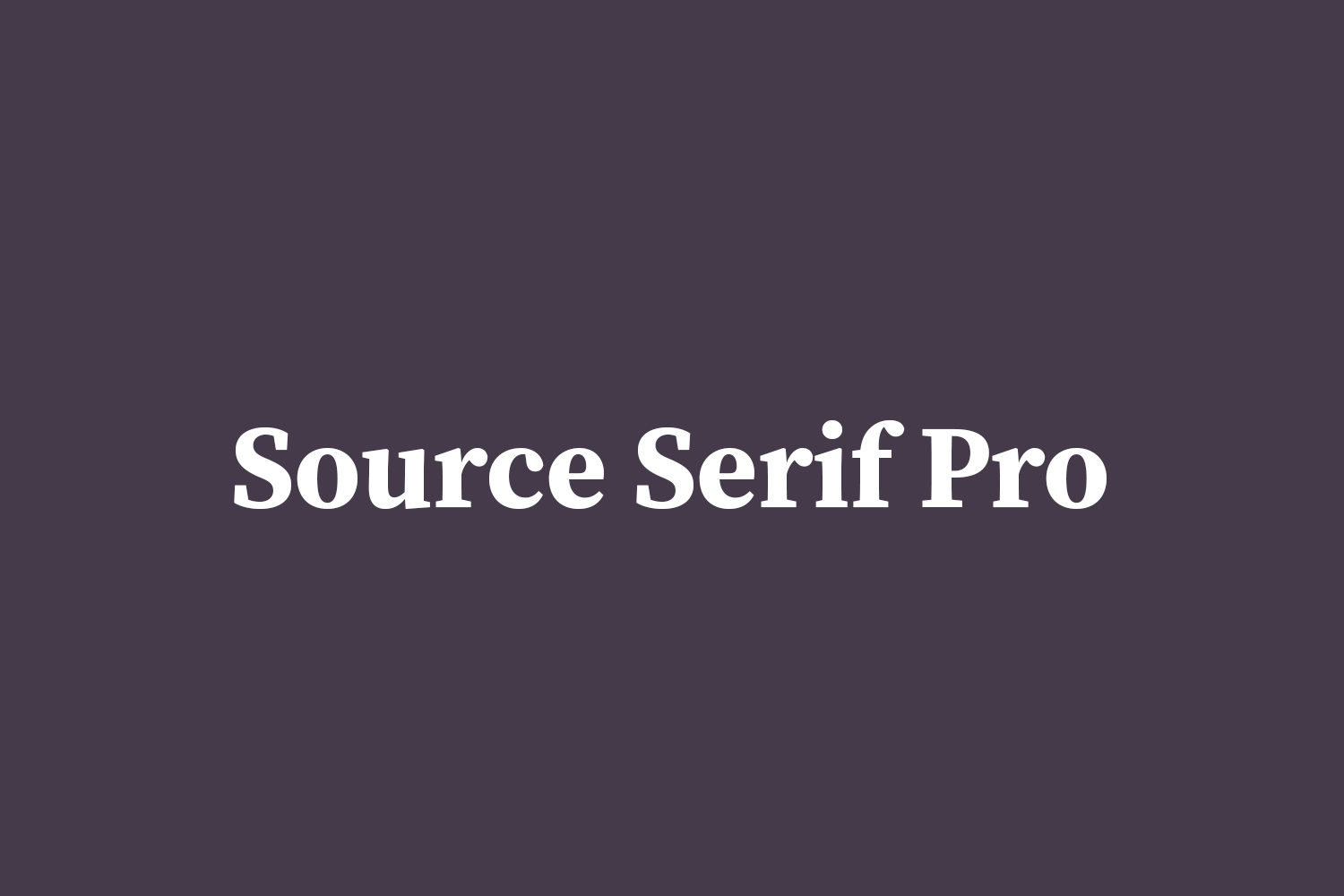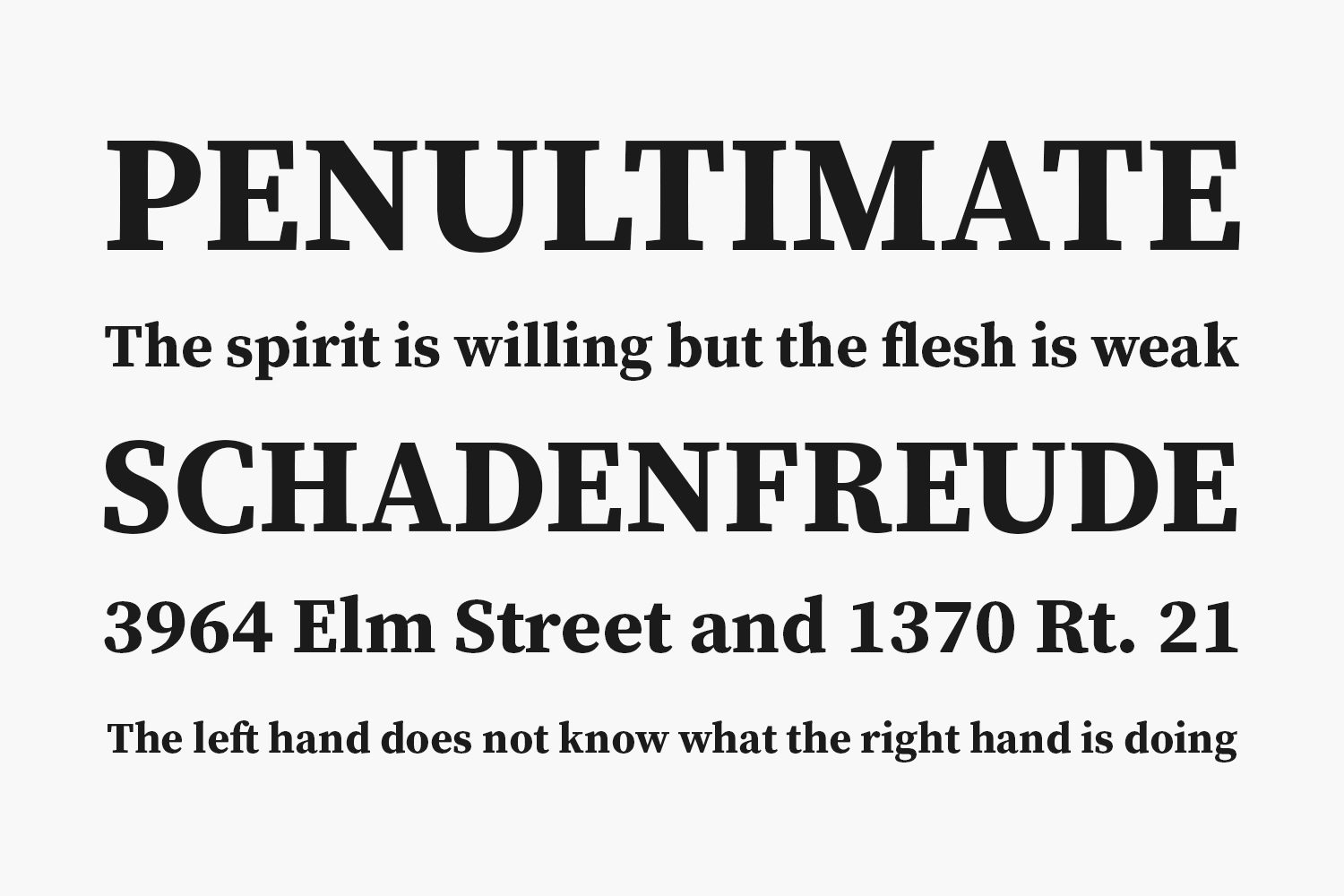
Source Serif Pro
Source Serif Pro is a serif typeface in the transitional style, designed to complement Source Sans. Their close companionship is achieved by a careful match of letter proportions and typographic color. While designed to harmonize with its serif-less counterpart, Source Serif often takes its own direction, in part because the two are inspired by different historical precedents. Source Serif is loosely based on the work of Pierre Simon Fournier, and many idiosyncrasies typical to Fournier’s designs are also found in Source Serif. Without being a pure historical revival, Source Serif takes cues from the Fournier model and reworks it for a modern age.
Designed by Adobe